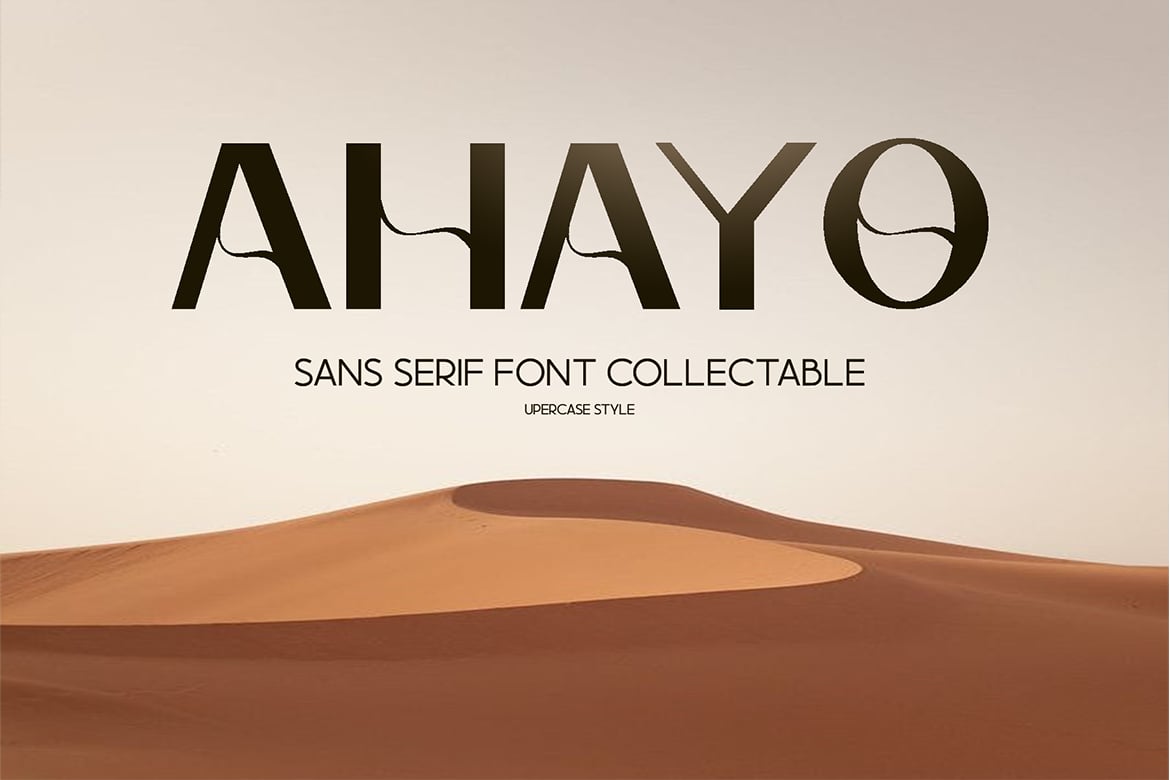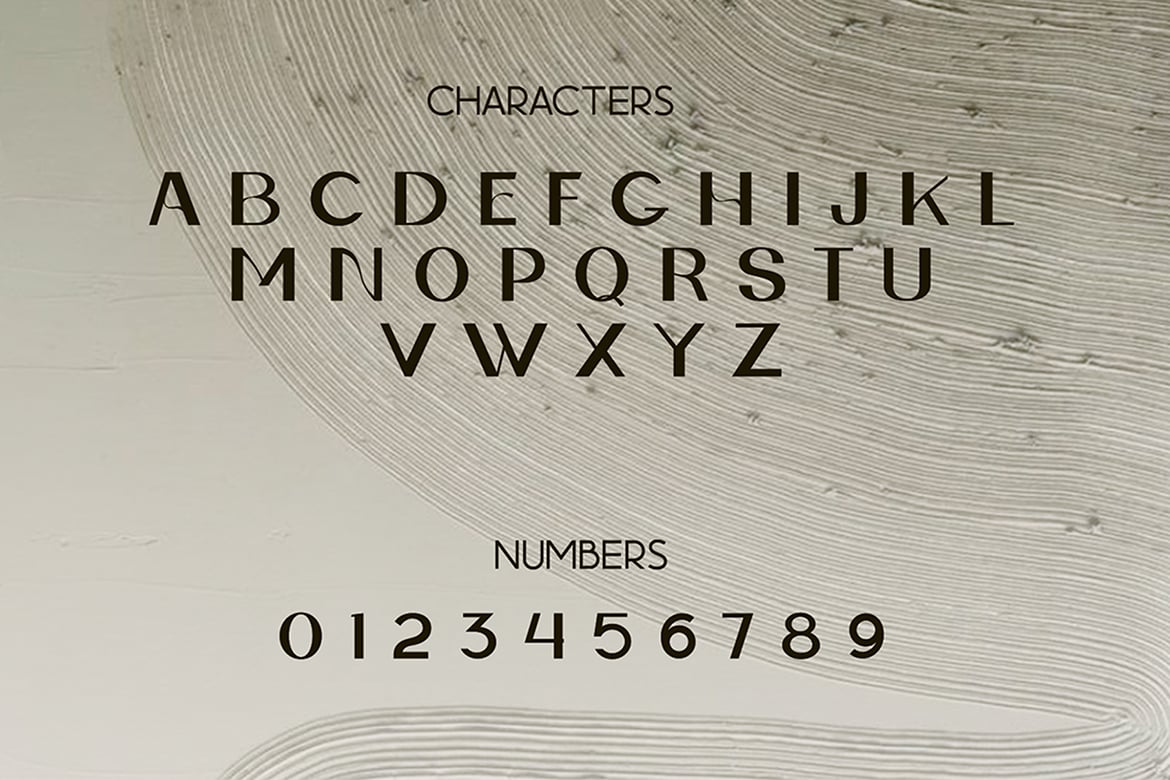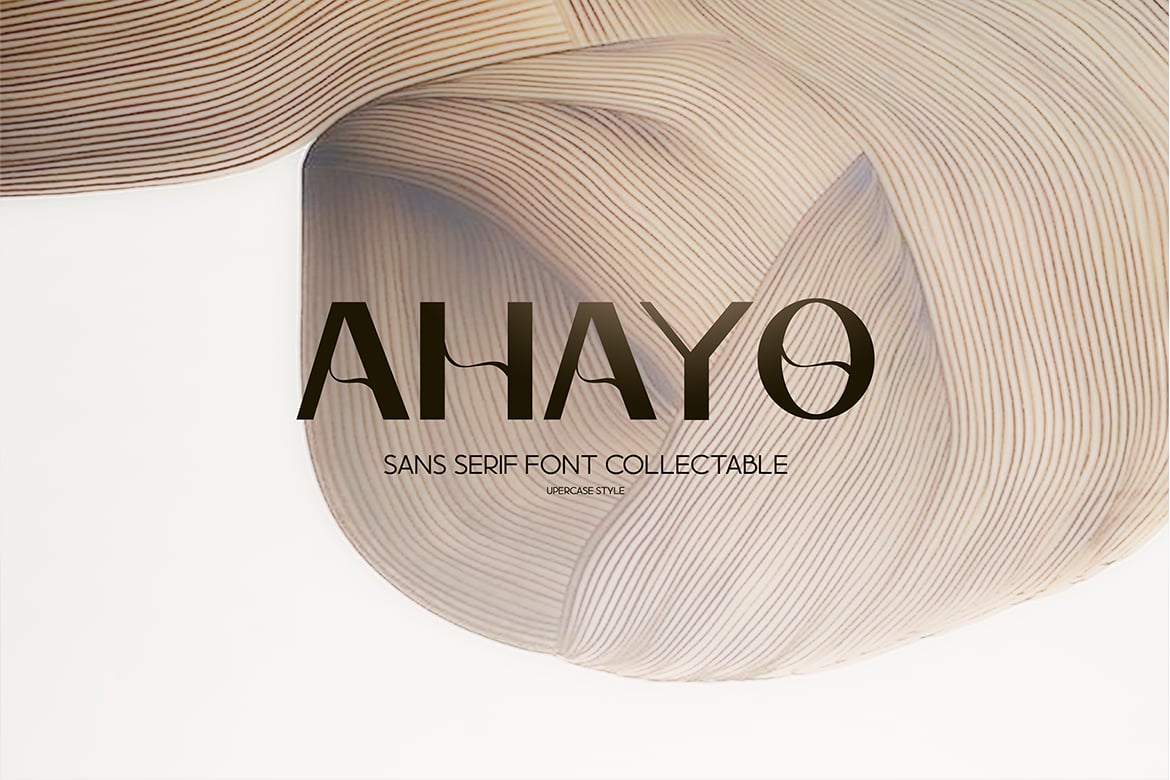
Ahayo – Classy Elegant Font
Introducing Ahayo, an elegant, classic, and beauty sans serif font. Its unique and luxury feel.
So perfect for you who needs a typeface for logo designs, magazine, social media, brochure, and many more.